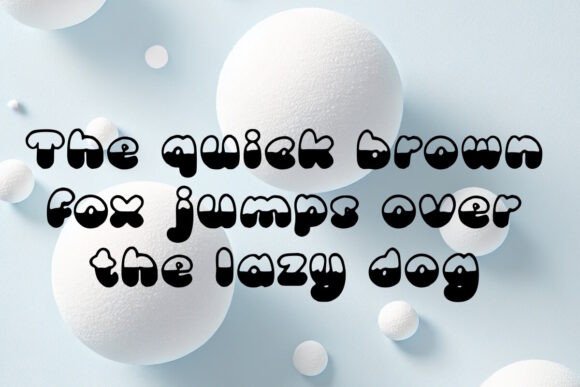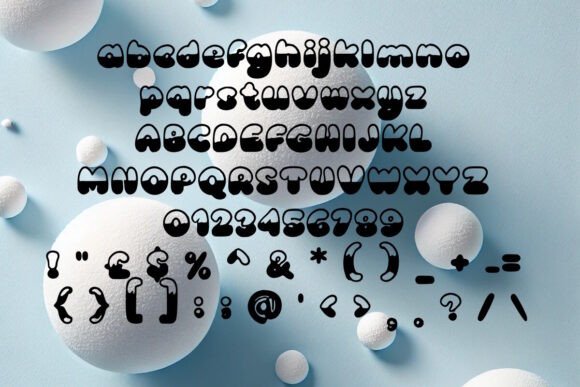
Introduction to Snow Way! Font
As a designer, there’s nothing quite like the thrill of finding the perfect font to bring a project to life. Remember the moment you stumbled upon that one font that made your design sparkle? For me, it was a winter wonderland-themed project where I needed a font that captured the magic of the season. That’s when I discovered Snow Way! Font, and it was love at first sight. This quirky and cheerful font is topped with snowy caps, making it the perfect addition to any winter-themed project.
Snow Way! Font is a game-changer for designers looking to add a touch of whimsy and creativity to their projects. With its bold and playful design, it’s sure to bring a smile to anyone’s face. Whether you’re designing for Christmas, a winter party, or just want a chilly, creative touch, Snow Way! Font is here to make your projects as magical as a fresh snowfall.
Key Features of Snow Way! Font
- High-quality design for creative projects: Perfect for use in winter-themed designs, logos, and other visual projects.
- Transparent background: Allows for easy layering and customization in your design resource.
- Supports various languages: Compatible with multiple languages, making it a versatile design resource.
- Includes multiple font styles: Offers a range of font styles, including bold, italic, and regular, to enhance your design.
- High-resolution design: Available in high-resolution formats, ensuring crisp and clear typography in your creative project.
- Perfect for digital and print use: Suitable for both digital and print-based creative projects, including web design, logos, and brochures.
Honest Review: Snow Way! Font
I recently came across the Snow Way! Font and was excited to give it a try for a creative project. Upon closer inspection, I was impressed by its high quality and unique design. The font features a transparent background, making it perfect for any design that requires a clean and minimalist aesthetic.
- ✨ Unique and creative design that sets it apart from other fonts
- ✨ High quality and clear typography
- ✨ Transparent background for a clean and minimalist look
- ⚠️ Limited character set, may not be suitable for long-form text
- ⚠️ Not as versatile as other fonts, may require more creativity to use effectively
Overall, I was impressed by the Snow Way! Font and its potential to elevate any creative project. However, its limitations should be taken into consideration before using it as a primary font. Despite this, I would still recommend it as a design resource for those looking for a unique and high-quality font.
Snow Way! Font
Tips for Getting the Most Out of Snow Way! Font
To get the most out of the Snow Way! Font, try using it in combination with other design elements, such as bold colors and graphics. Experiment with different font sizes and styles to create visually appealing designs.
The Snow Way! Font is perfect for various design projects, including:
- Branding and logo design
- Print and digital marketing materials
- Website and social media graphics
- Presentations and documents